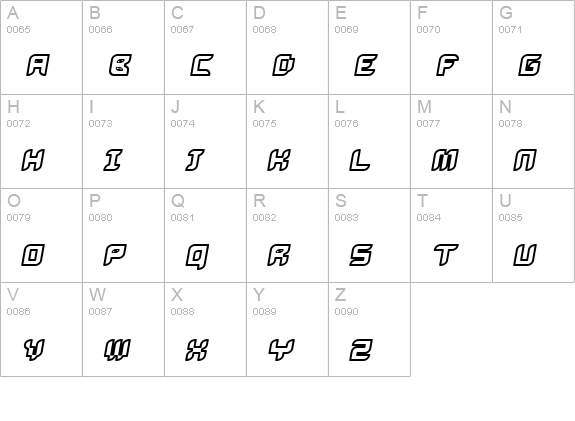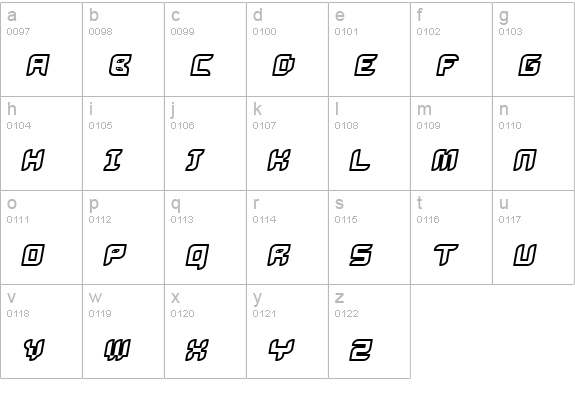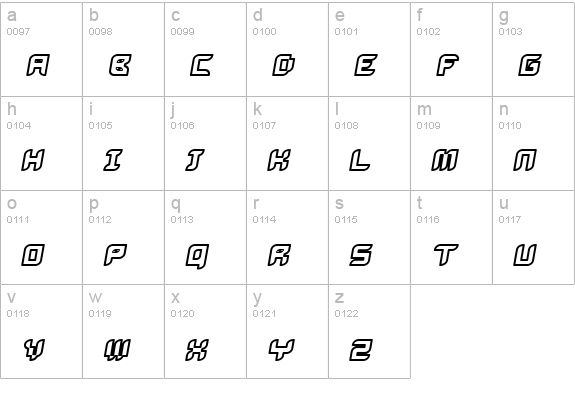
Bug2K Oblique Font Details
Bug2K Oblique is a distinctive, italic variant in the Bug2K typeface family \xE2\x80\x94 well suited to design and typography projects.
Bug2K Oblique font is a stylish and modern typeface that adds a touch of elegance to any design project. Its sleek and slanted appearance gives a unique and eye-catching look to headlines, titles, and other text elements. With its clean lines and contemporary feel, Bug2K Oblique font is perfect for branding, packaging, advertising, and more. Best of all, Bug2K Oblique font is available for free download at FontsMarket.com. This means you can easily access this versatile font to enhance your creative projects without any cost. Whether you're a designer, marketer, or hobbyist, Bug2K Oblique font is a valuable addition to your font collection. Download it today and elevate your designs with this free and stylish typeface.